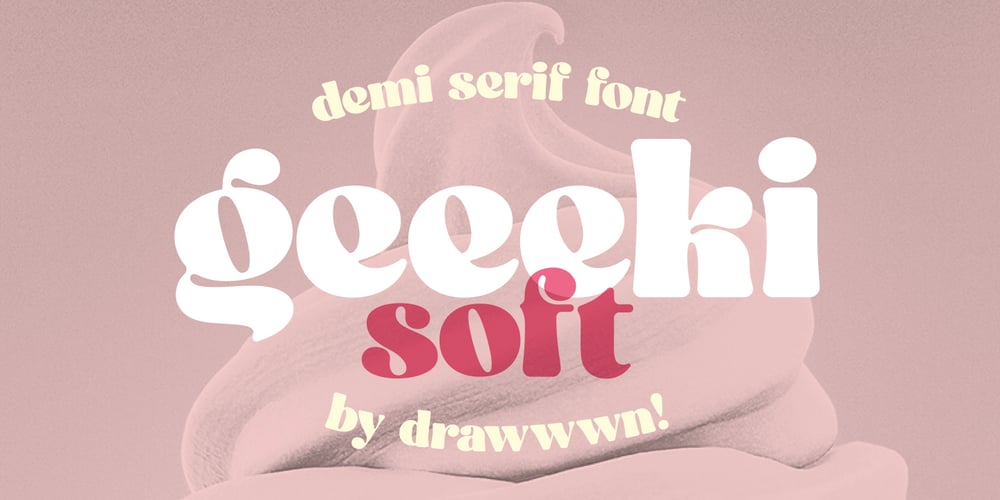
Geeeki Soft
Geeeki Soft font
Geeeki Soft Font Family was designed by Ryan Thomas and published by Drawwwn. Geeeki Soft contains 1 styles and family package options. Geeeki Soft is a playful semi serif font, it’s cute yet nerdy, stylish but dorky. Bold and chunky, it’s a unique headline grabber, so it’s the perfect match for style magazines, fashion brands and whimsical websites. Find your inner super-geek!Now softer, rounded and bouncier geeeki is available too!